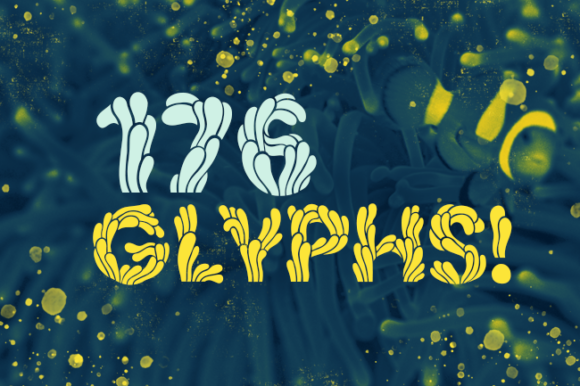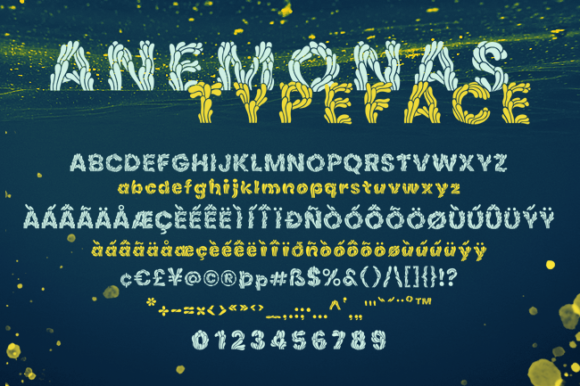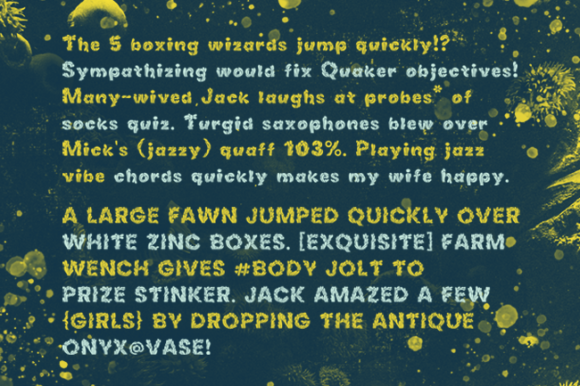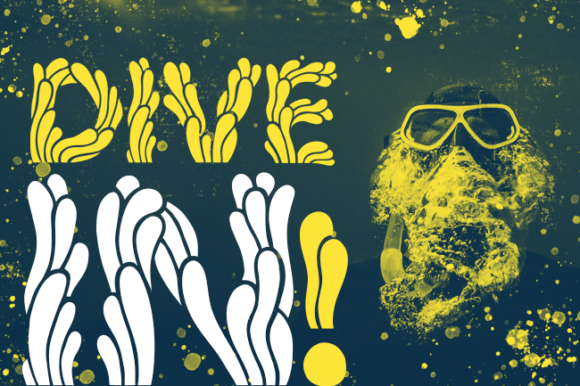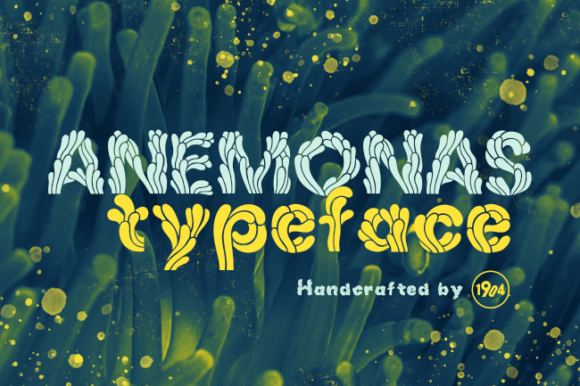
Discover the Unique Charm of Anemonas Font: Elevate Your Designs with this Decorative Delight
In the world of typography, few fonts manage to capture the essence of creativity and uniqueness as effectively as Anemonas Font. This decorative font is a true gem, offering an original look that can instantly elevate a wide range of crafty ideas, from professional letterheads and titles to charming stationery. Whether you’re a designer looking for a fresh inspiration or a crafter seeking to add a personal touch to your projects, Anemonas Font is sure to captivate your imagination and enhance your creations.
The Distinctive Appeal of Anemonas Font
Anemonas Font stands out in the vast sea of typographic options due to its incredibly unique and interesting design. Each letter is crafted with meticulous attention to detail, resulting in a font that exudes a sense of elegance and playfulness simultaneously. The distinctive appeal of Anemonas lies in its ability to add a decorative flair to any project, making it an excellent choice for those who wish to stray from the conventional and explore new creative horizons.
One of the key advantages of Anemonas Font is its versatility. This font is not limited to a specific use case; instead, it can be seamlessly integrated into various design projects. Here are a few ways you can utilize Anemonas Font:
• Letterheads and Titles: Add a professional yet creative touch to your business correspondence or project titles with the elegant and distinctive look of Anemonas Font.
• Stationery: Whether you’re designing greeting cards, invitations, or personal letters, Anemonas Font can help you create memorable and visually appealing stationery.
• Branding and Logos: For businesses looking to establish a unique brand identity, Anemonas Font can serve as an inspiration or a direct element in logo design, ensuring your brand stands out.
• Art and Craft Projects: Crafters and artists can use Anemonas Font to add a decorative element to their projects, such as scrapbooking, DIY crafts, or handmade goods.
Why Designers and Crafters Love Anemonas Font
Designers and crafters alike are drawn to Anemonas Font for several reasons:
• Uniqueness: In a world where generic fonts are common, Anemonas offers a breath of fresh air with its unique design.
• Flexibility: The font’s versatility means it can be used in both digital and print projects, catering to a wide range of creative needs.
• Ease of Use: Despite its decorative nature, Anemonas Font is easy to read and use, making it practical for various applications.
• Inspiration: The font’s distinctive style can serve as a great source of inspiration for designers looking to push the boundaries of their creativity.
How to Get the Most Out of Anemonas Font
To truly leverage the potential of Anemonas Font, consider the following tips:
• Experiment with Colors: The decorative nature of Anemonas Font makes it an excellent candidate for experimenting with different colors and gradients.
• Mix and Match: Don’t be afraid to combine Anemonas Font with other typography styles to create a unique visual hierarchy.
• Pay Attention to Spacing: Given its decorative design, ensure you adjust the spacing between letters and lines to optimize readability and aesthetic appeal.
Anemonas Font is more than just a decorative font; it’s a creative tool that can transform your designs and projects. Its unique charm, versatility, and ease of use make it an invaluable asset for designers and crafters looking to add a personal and distinctive touch to their work. Whether you’re aiming to create professional-looking documents or unique craft projects, Anemonas Font is sure to inspire and enhance your creations.